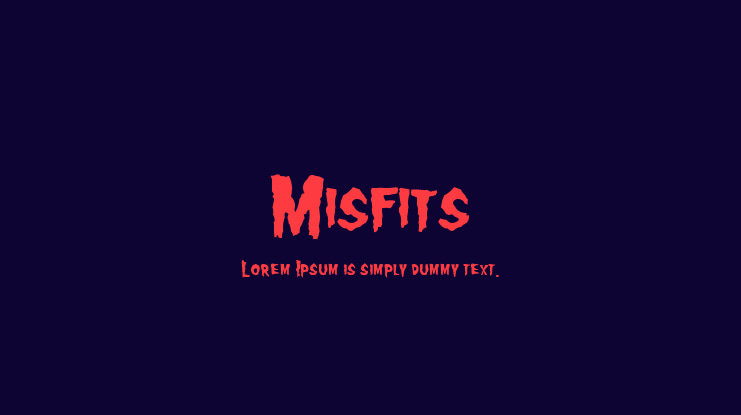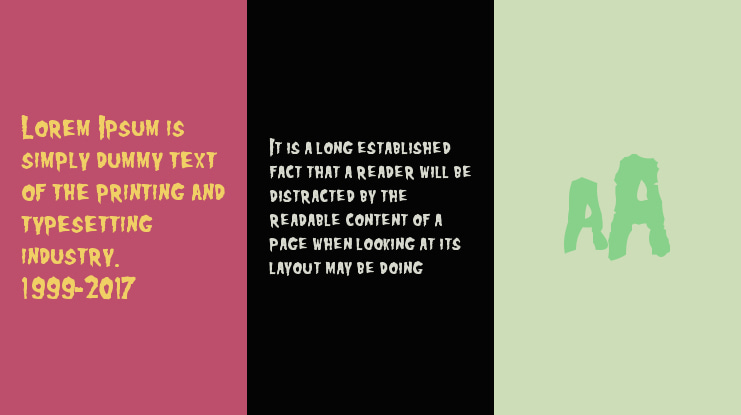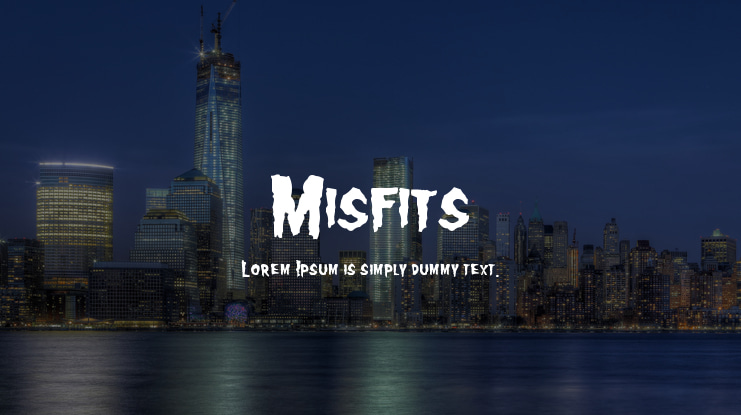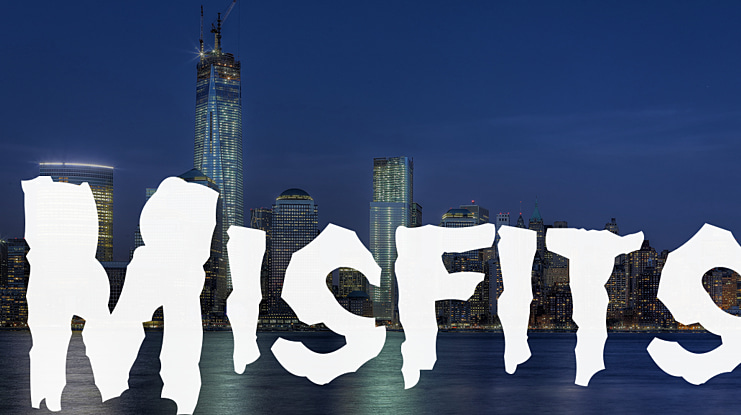
Misfits Font
This font is made to look like the logo for the Misfits. Most of the letters for the Misfits logo came from the Famous Monsters of Filmland logo. When typing the word Misfits, type it MisFiTs in order for it to look like the logo.
Created by Rob Villareal 2/28/01